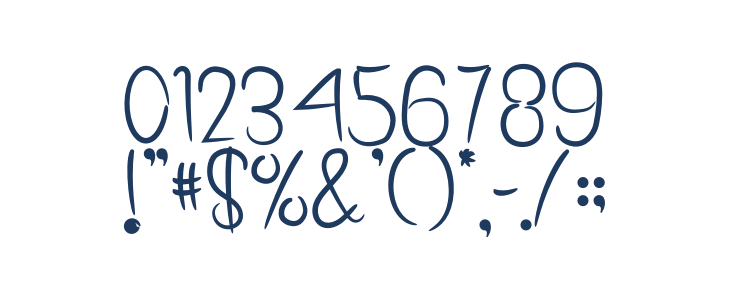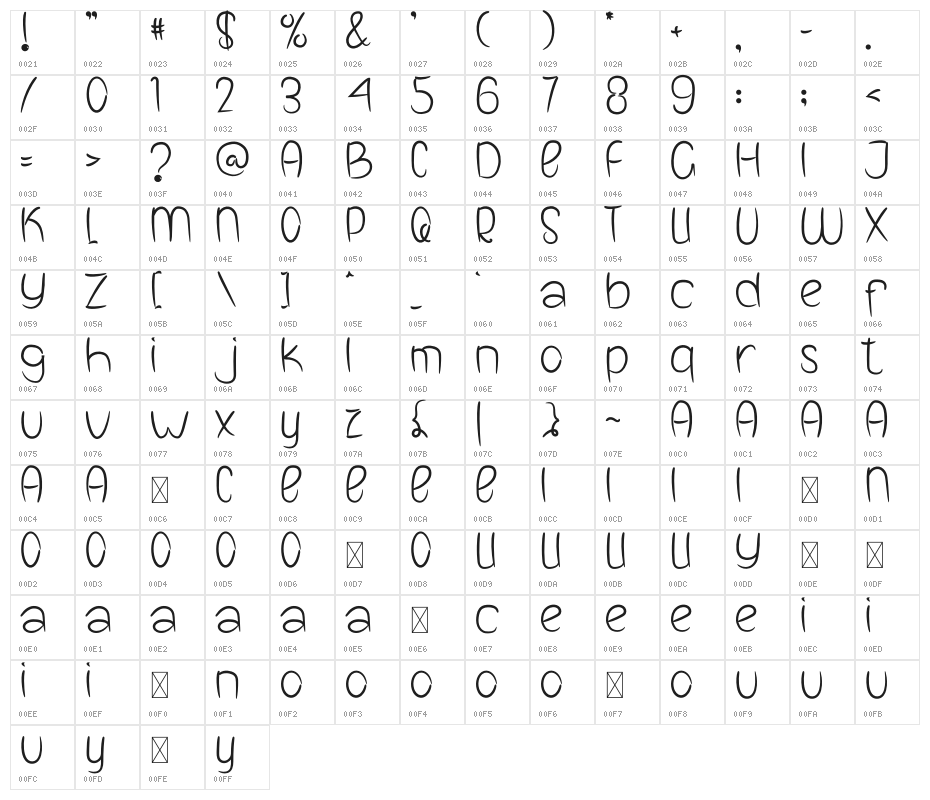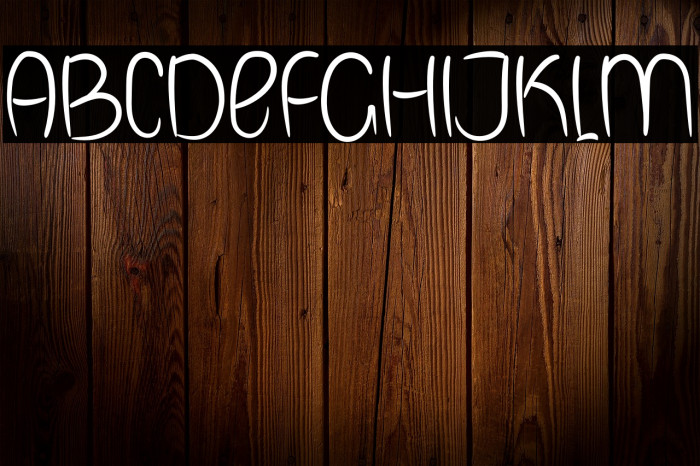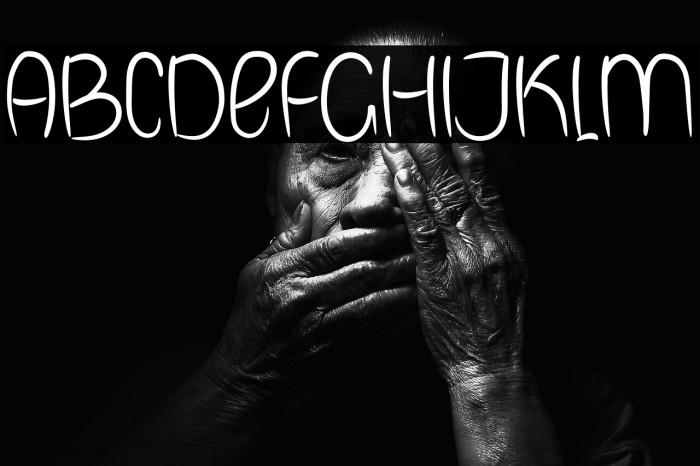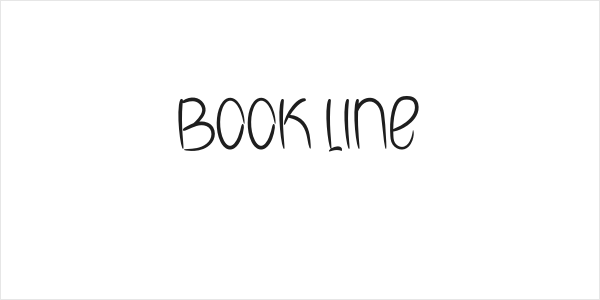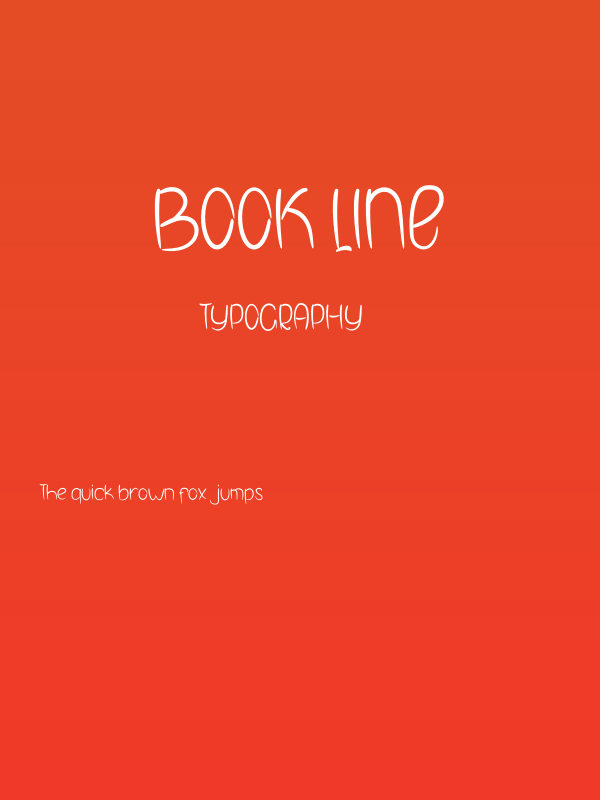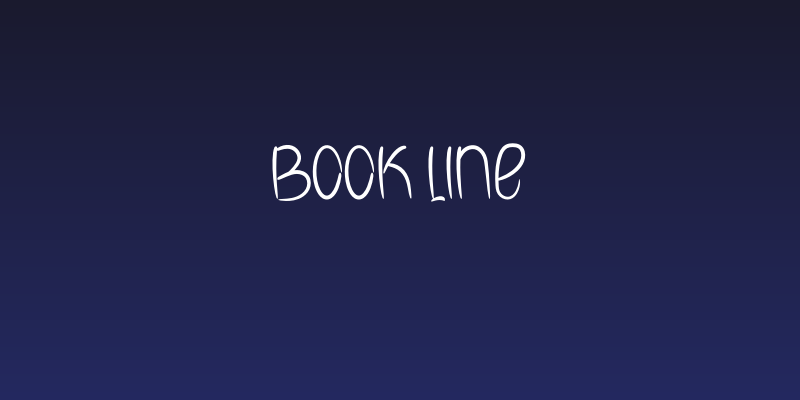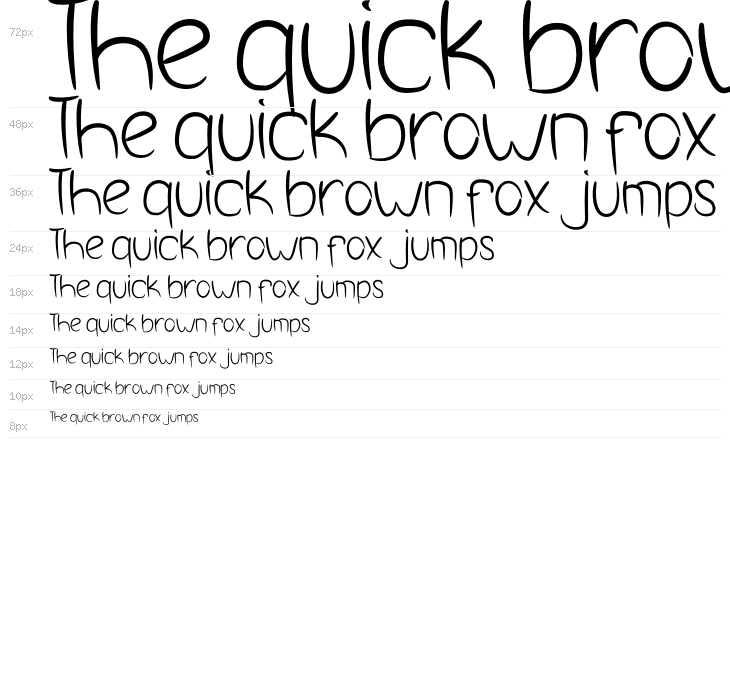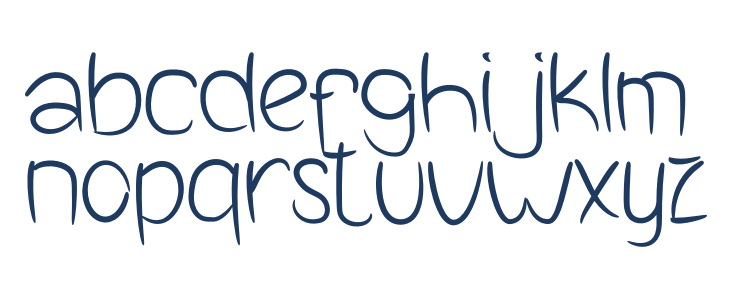
BOOK LINE Font
BOOK LINE Description
This font features a playful and whimsical design, characterized by its rounded and flowing letterforms. The uppercase and lowercase letters maintain a consistent style, with smooth curves and a slightly informal appearance. The numerals and special characters follow the same playful aesthetic, making the font suitable for creative and casual applications. The overall look is friendly and approachable, with a touch of elegance due to its clean lines and balanced proportions.
| Overall Style | Playful |
| Use Case | Headlines, Logos, Creative projects |
| Proposed Projects | Ideal for children's books, greeting cards, playful branding, and creative projects. |